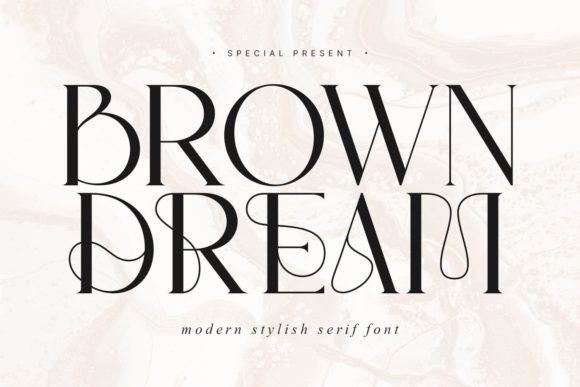
The Elusive Font: A Designer’s Quest for the Perfect Look
I still remember the frustration of working on a project, hours spent searching for the perfect font, only to come up empty-handed. My client wanted a logo that exuded elegance and sophistication, but every font I tried seemed to fall flat. That was until I stumbled upon the Brown Dream font – a game-changer for any designer looking for a touch of modern style and femininity.
Brown Dream Font: A Comprehensive Review
The Brown Dream font is a beautiful collection of modern, feminine, and classy characters that can elevate any branding or design project. Here’s what I love about it:
- ✨ Unique and elegant look: The font’s blend of beauty and classy feel makes it perfect for logos, book covers, perfumes, fashion magazines, or invitations.
- ✅ Variety of characters: The font includes lots of decorative characters, as well as unique alternative characters that will make your design stand out.
- 💫 OpenType features: Accessing the OpenType features allows you to tap into a large selection of alternate letters and ligatures, giving you endless possibilities for customization.
Of course, no font is perfect, and here are a few quirks to keep in mind:
- 🤔 Learning curve: With so many features and characters to explore, it may take some time to get familiar with the font’s capabilities.
- ⚠️ Limited use cases: While the font is versatile, it may not be the best fit for very formal or traditional designs.
The Story Behind Brown Dream Font
The Brown Dream font was designed with the intention of creating a beautiful, elegant font that would cater to the needs of designers looking for a touch of modern style and femininity. The designer, inspired by the world of fashion and luxury, aimed to create a font that would be perfect for high-end branding, fashion magazines, and luxury product packaging.
| Font Name | Brown Dream Font |
| Author | Koplexs Studio |
| What is the best use case for Brown Dream font? | The Brown Dream font is perfect for logos, book covers, perfumes, fashion magazines, or invitations that require a touch of modern style and femininity. |
| Is Brown Dream font suitable for body text? | While the font is beautiful, it’s not recommended for body text due to its elegant and decorative nature. It’s best used for titles, headings, or short paragraphs. |